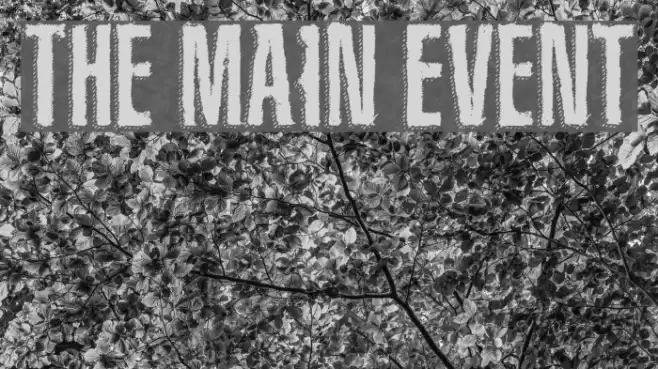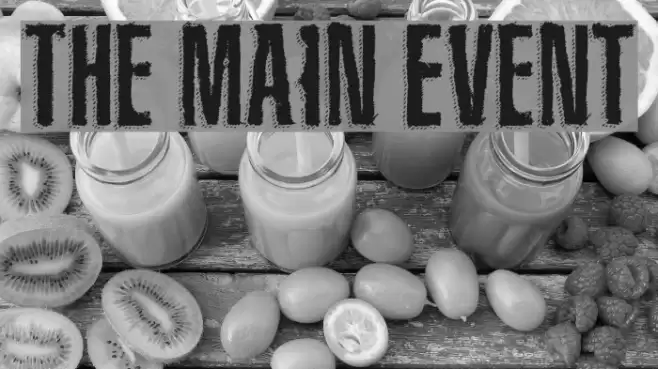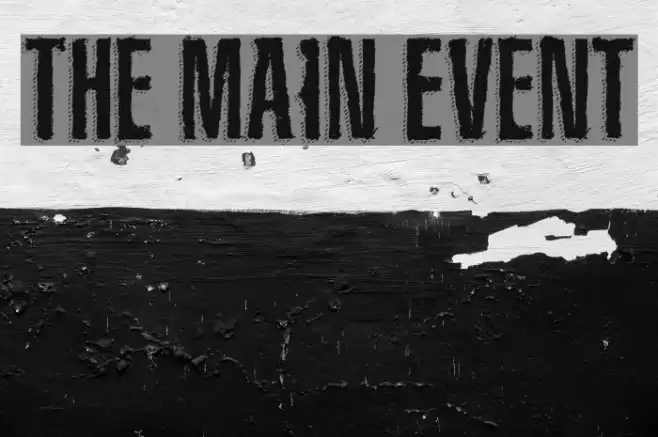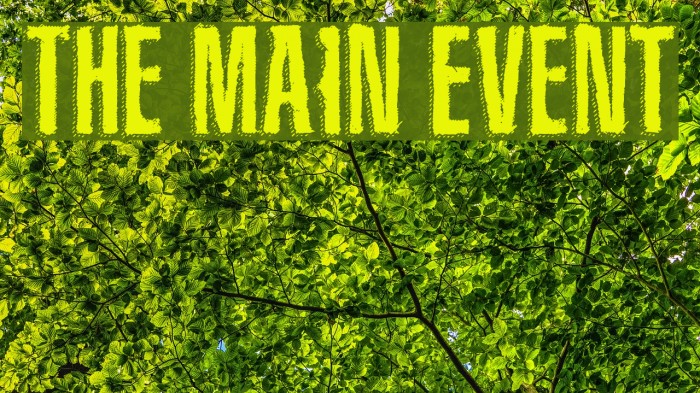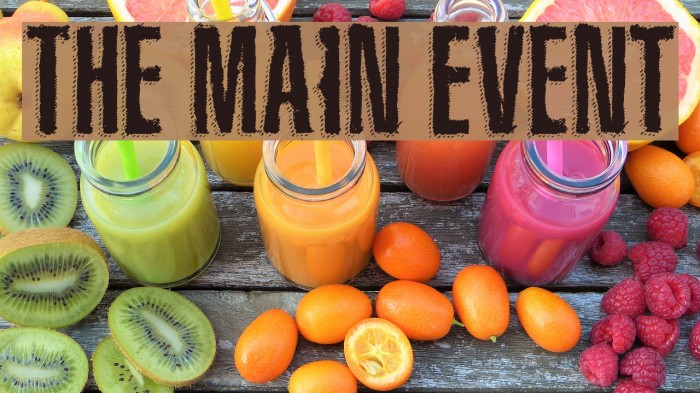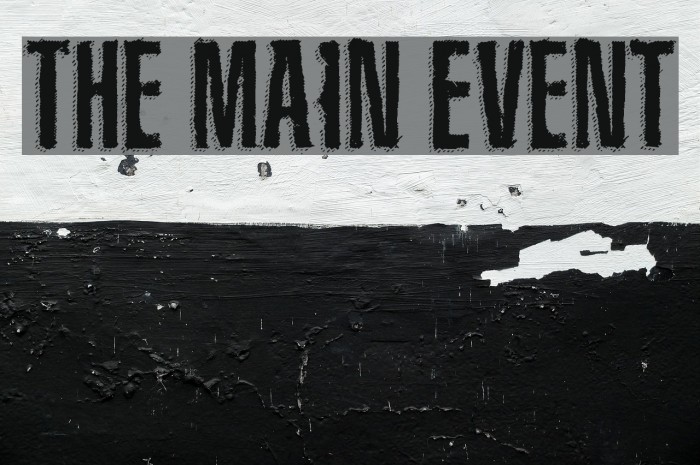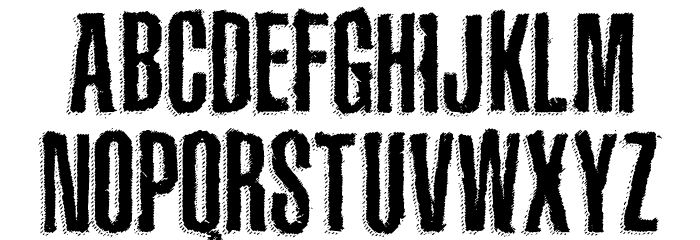
The Main Event Font
The Main Event Description
This font features a bold and rugged design with a distressed texture that gives it a gritty, impactful appearance. The uppercase letters are prominently displayed with a strong presence, making it ideal for attention-grabbing headlines. The characters have a consistent width, contributing to a uniform look across the text. The distressed effect adds a vintage or retro feel, reminiscent of old posters or signage. This font is well-suited for projects that require a bold statement or a touch of nostalgia.
A bold, distressed font with a vintage, rugged appearance from Uncategorized fonts.
- Proposed Projects: Ideal for posters, event flyers, branding, and any design needing a bold, vintage touch.
- Overall Style: Vintage